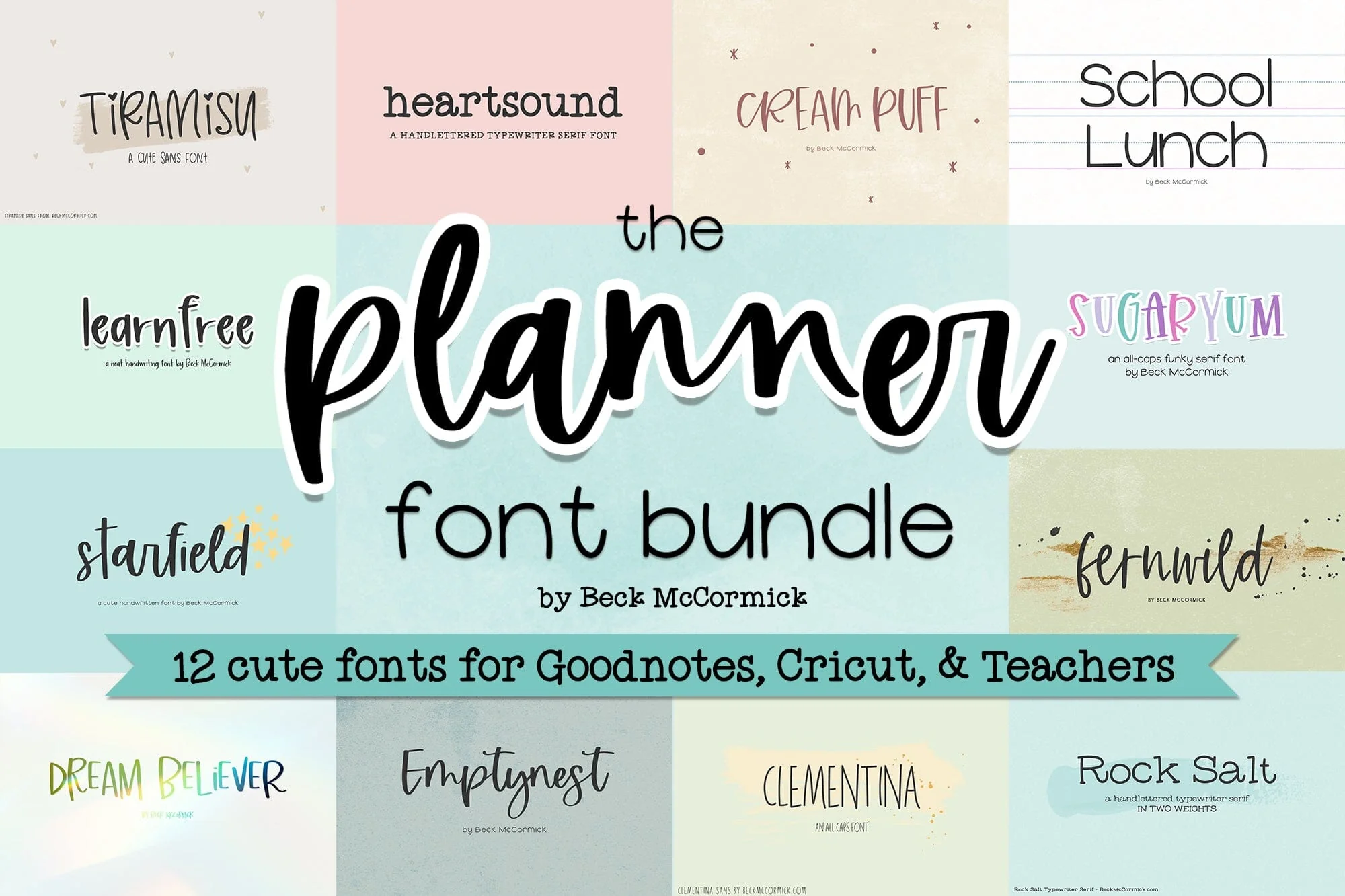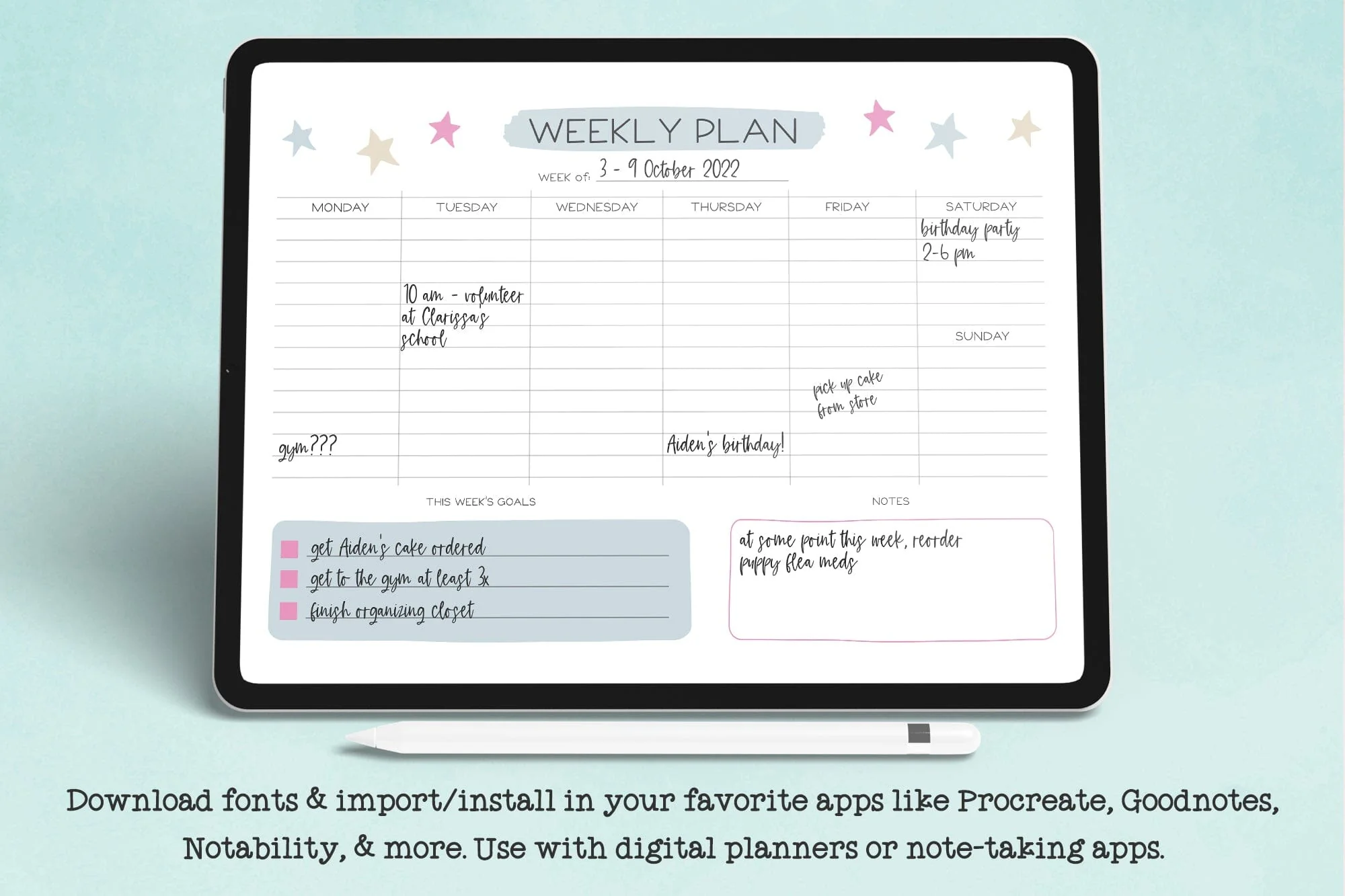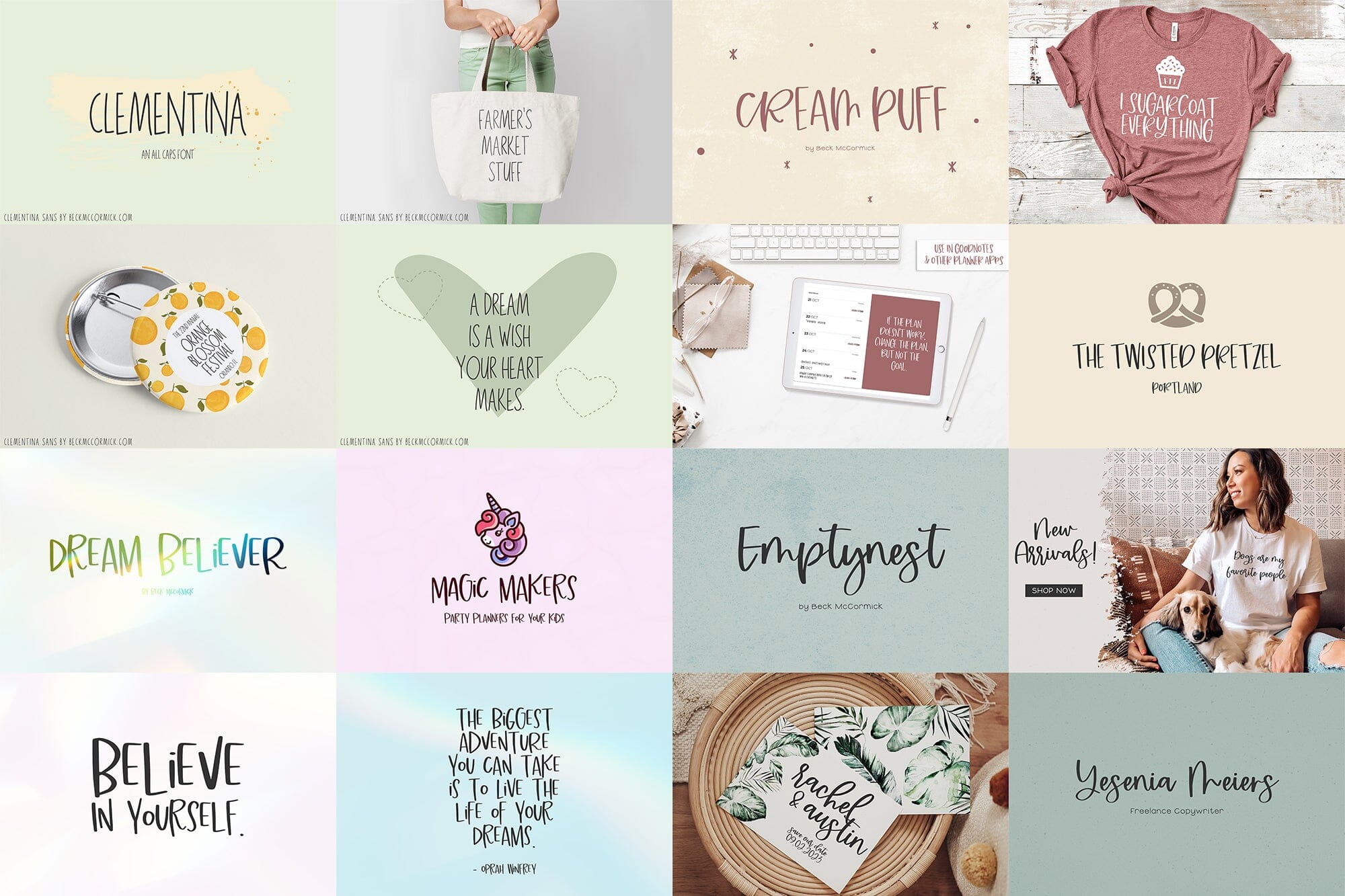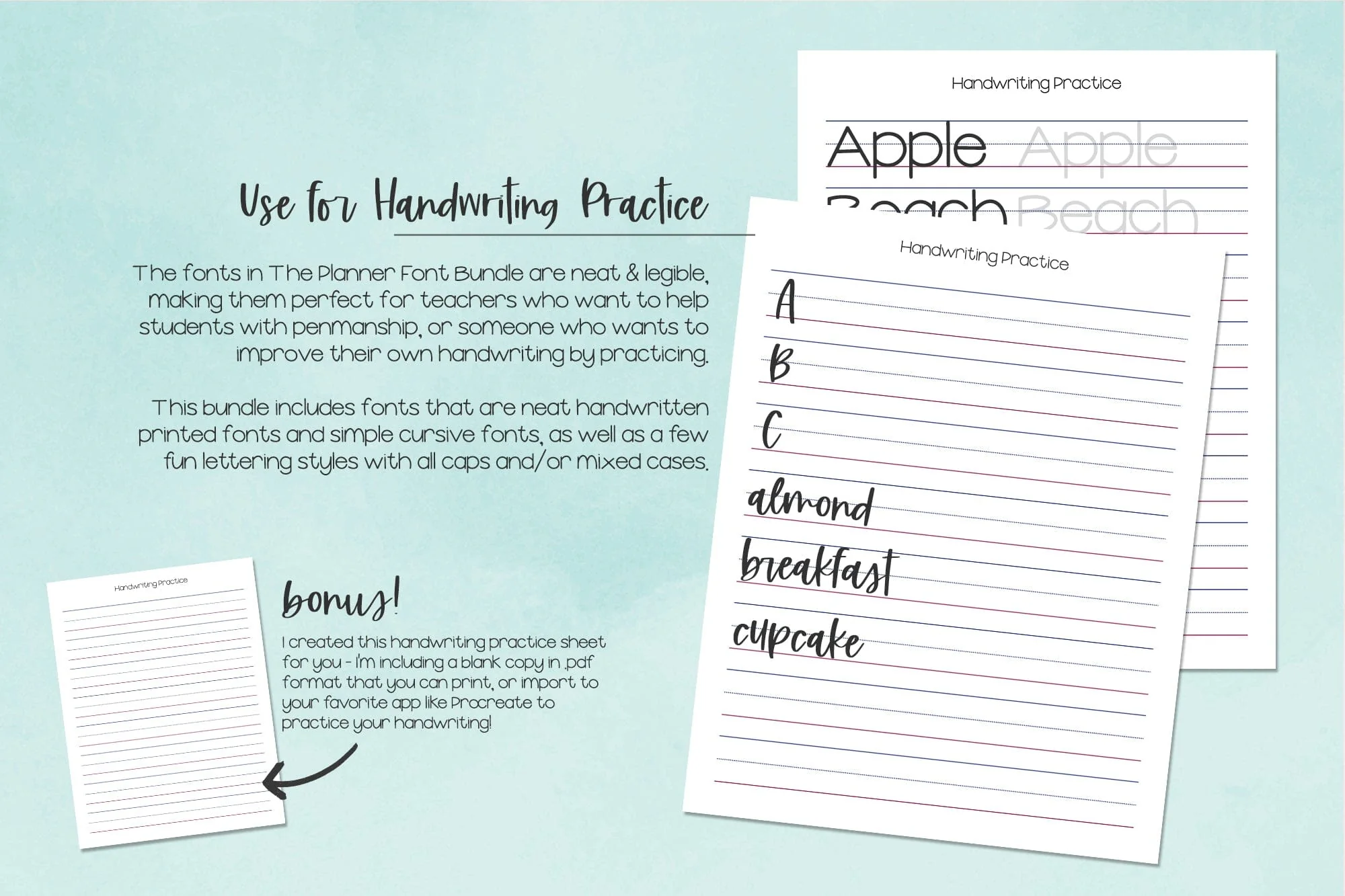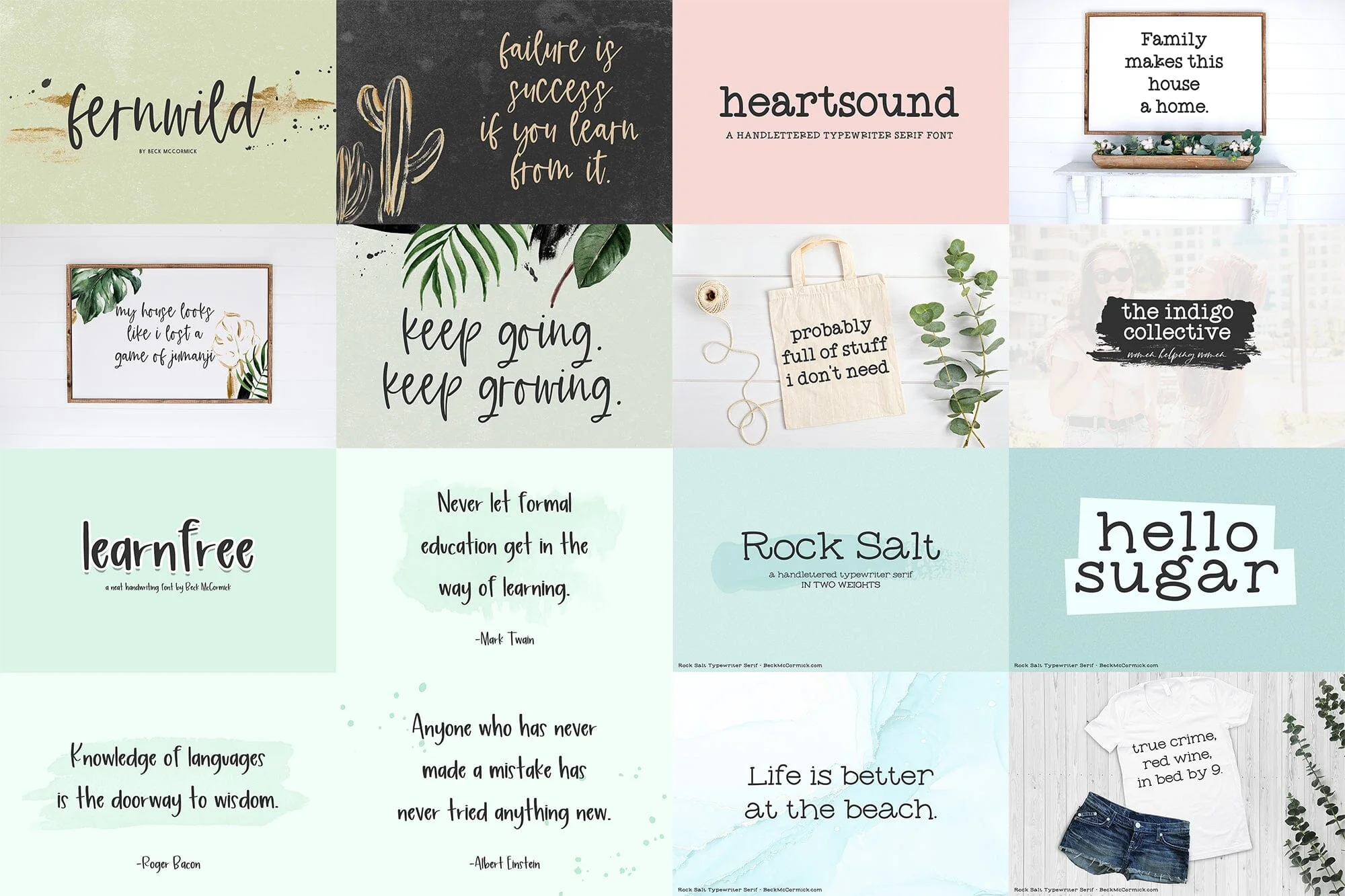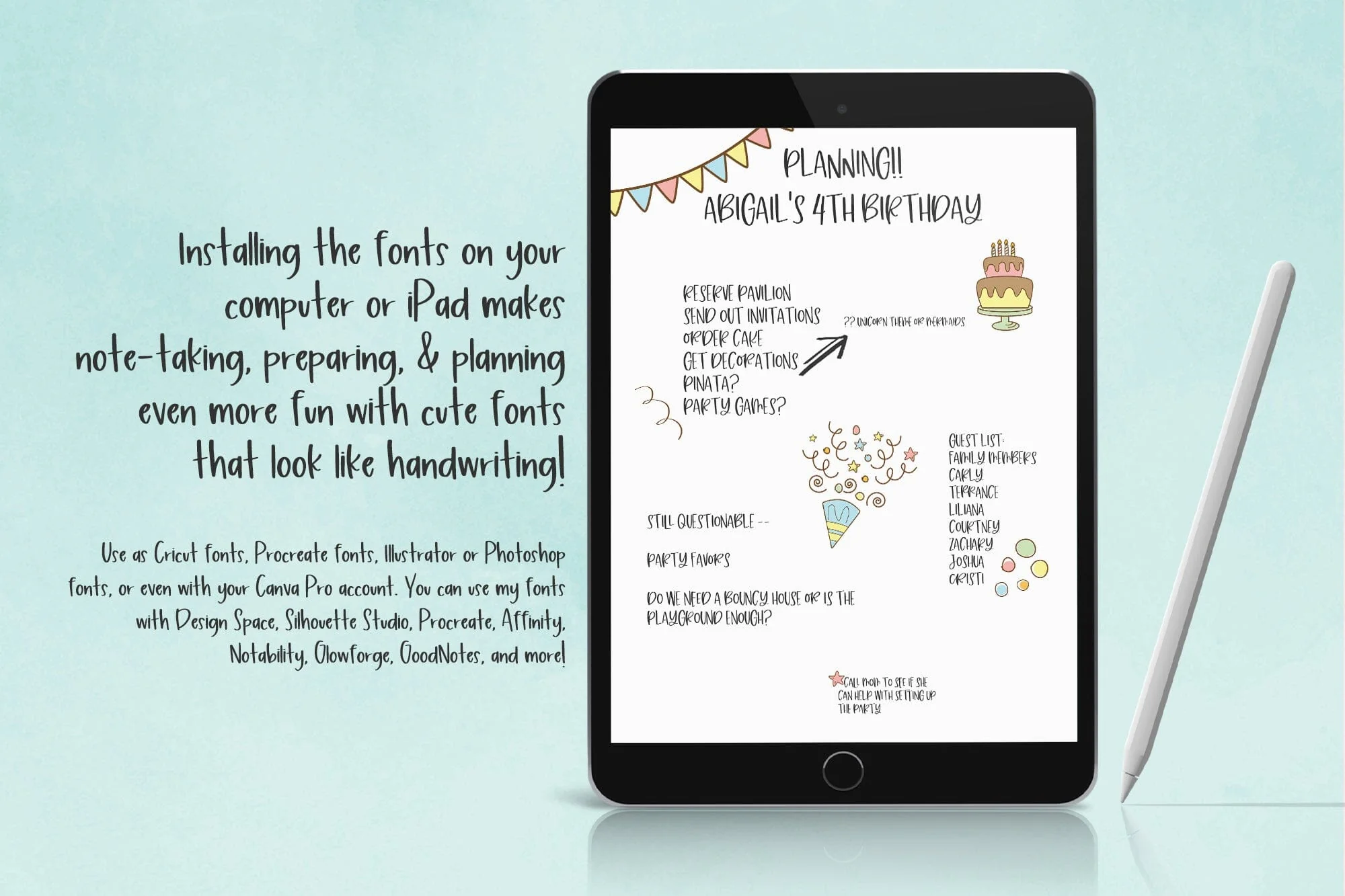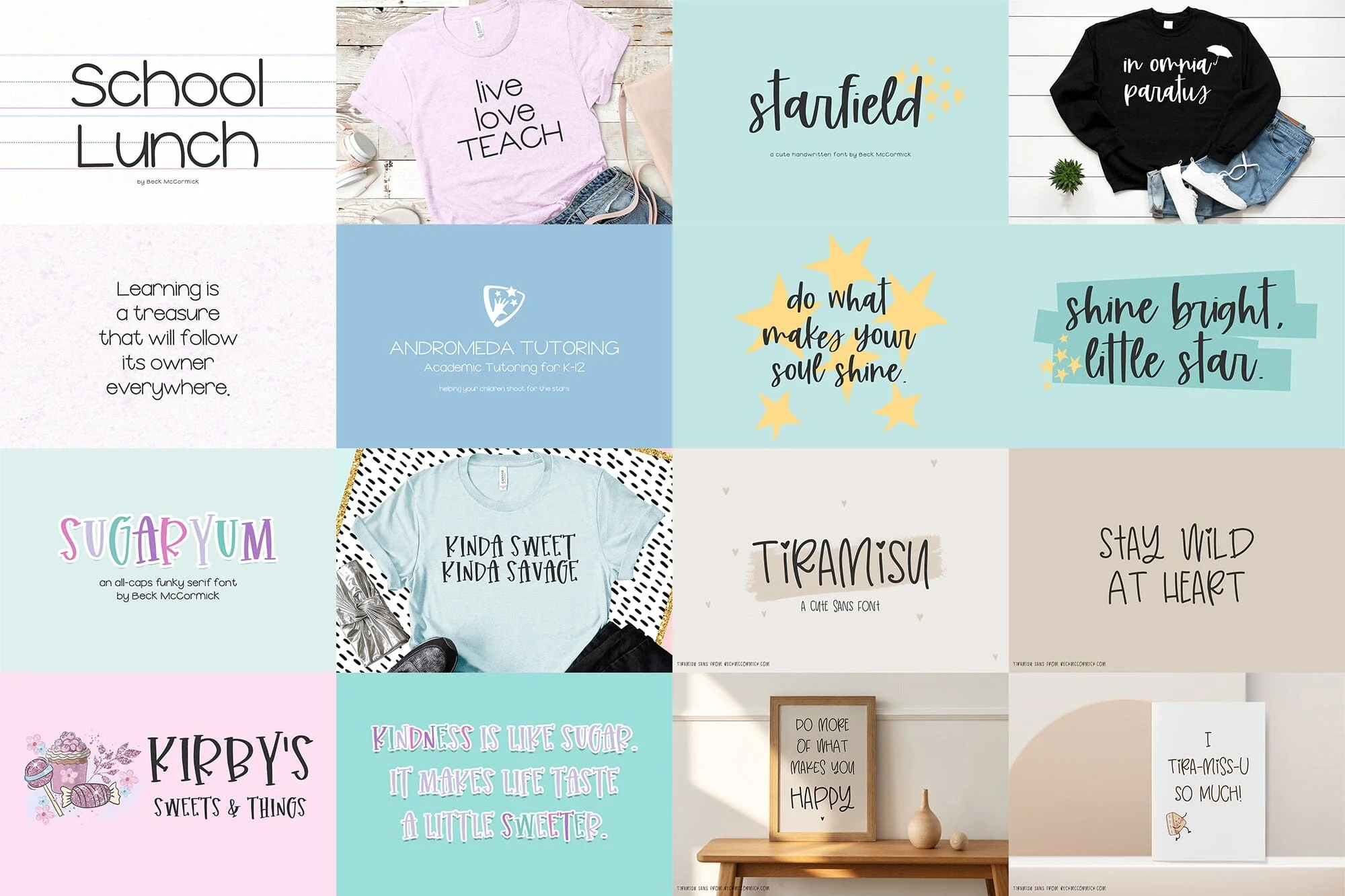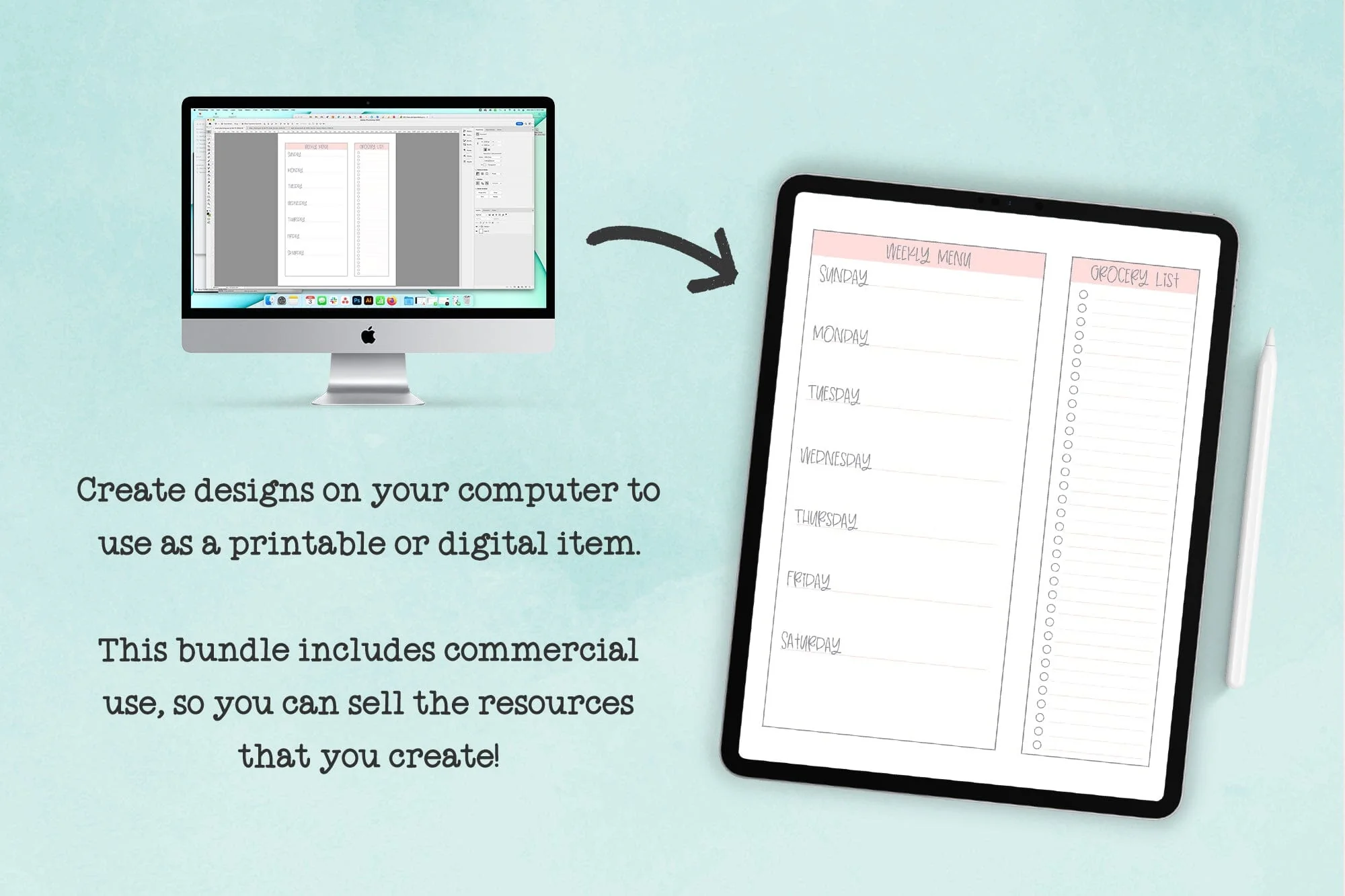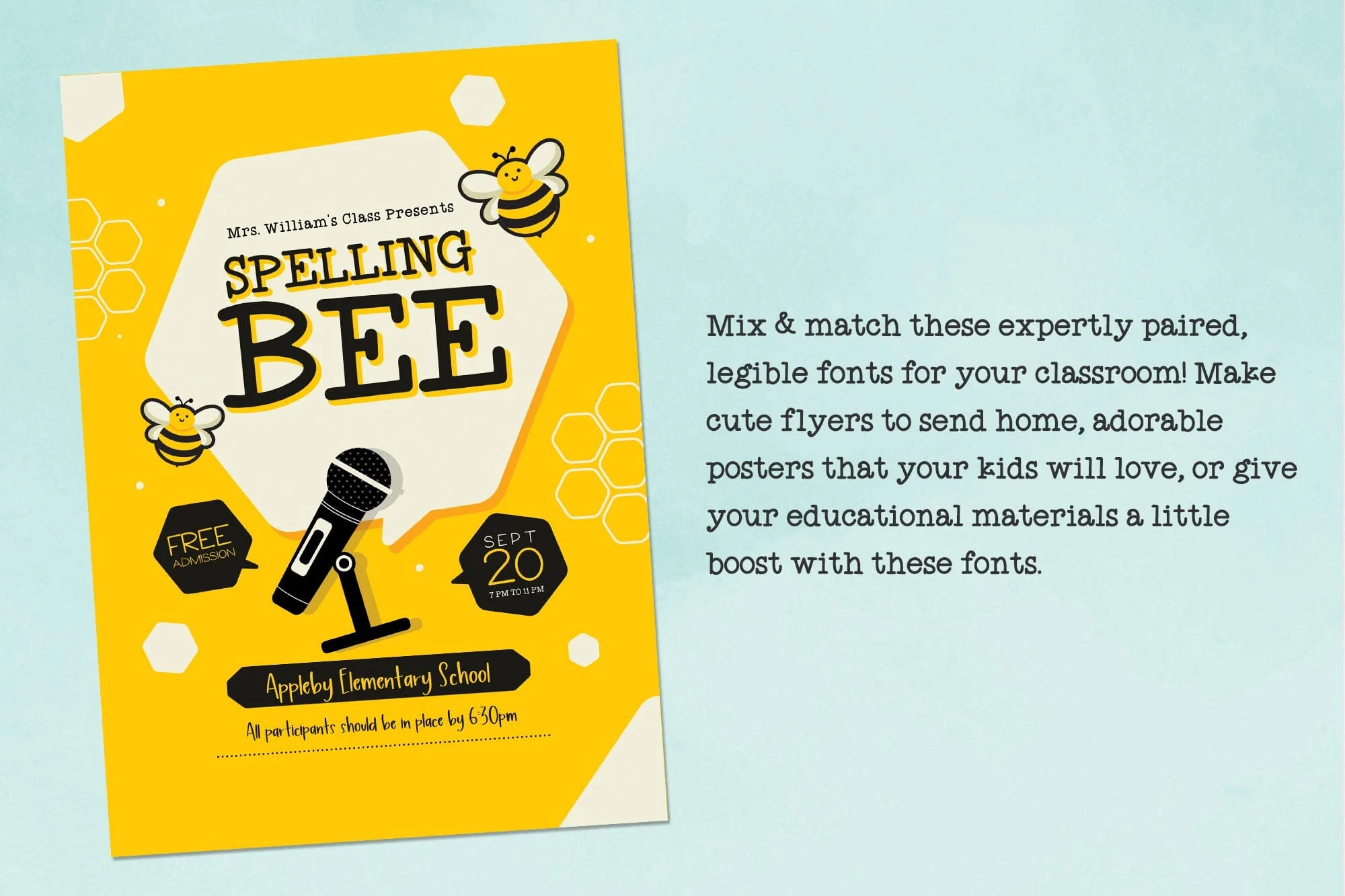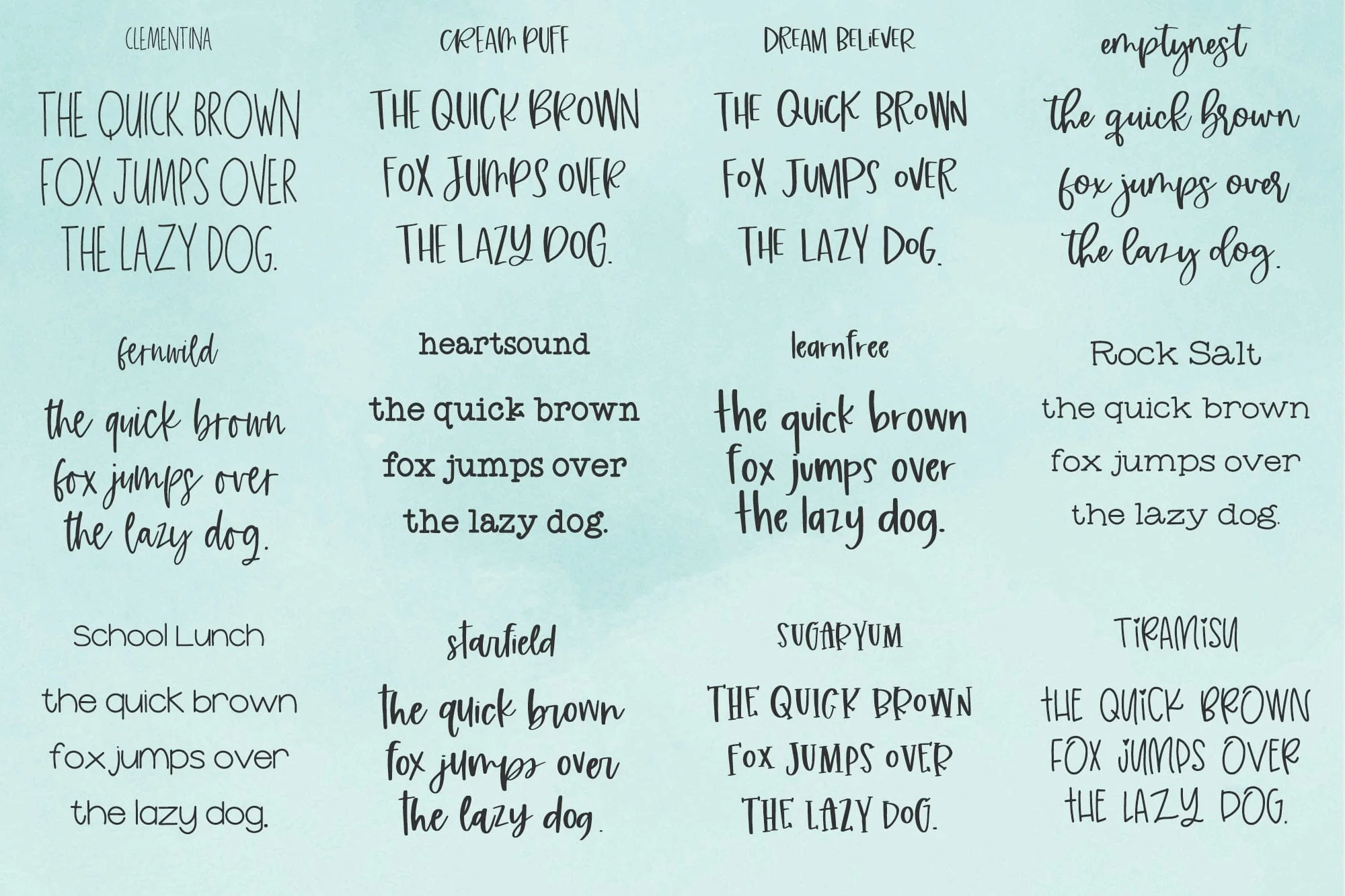
The Planner Font Bundle
Introducing the Planner Font Bundle, which includes 12 fonts! This bundle was curated with the planner-obsessed in mind - who doesnāt love cute fonts to use in GoodNotes, Procreate, or Notability?!
You get:
Clementina
Tiramisu
Rock Salt (regular & bold versions)
Heart Sound
Cream Puff
Dream Believer
Emptynest
Fernwild
Learnfree
School Lunch
Starfield
Sugaryum
Some suggested uses are:
- use with your favorite planner app (GoodNotes, Notability, or Procreate) to make some super cute weekly & monthly planners
- use as guidelines for handwriting practice - perfect for teachers that are teaching penmanship, or for the casual learner
- use to jazz up your note-taking for your latest classes in school - kept things totally legible but cute, making it even more fun to study
- use to create cute flyers, posters, or classroom elements for bulletin boards, name tags, & more